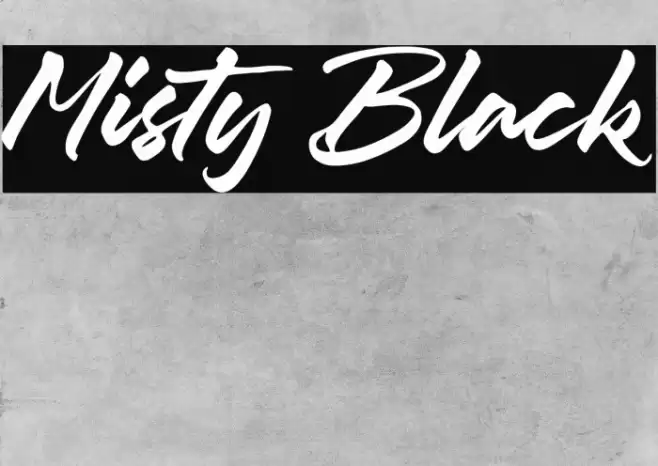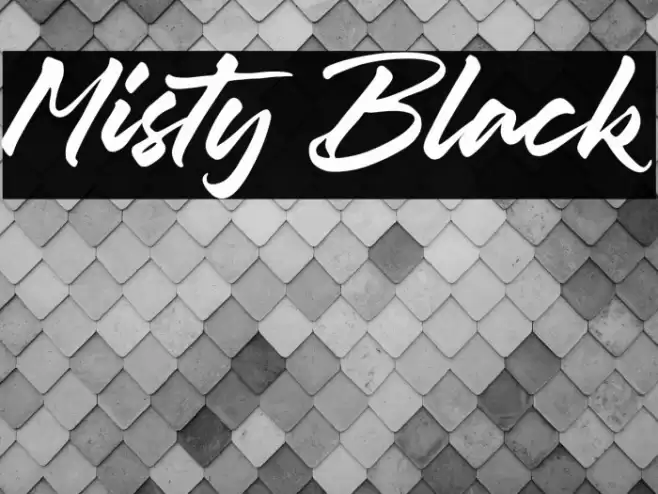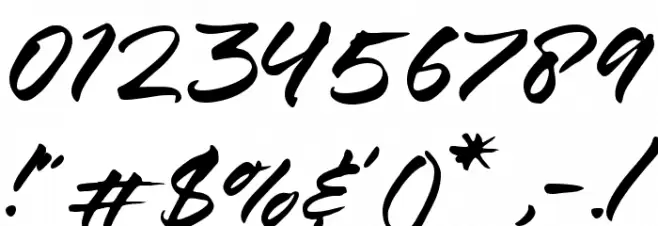
Misty Black Font
Misty Black Description
This font exudes a bold and expressive style, characterized by its fluid, cursive script that mimics the natural flow of handwriting. The uppercase letters are elegantly elongated, while the lowercase letters maintain a consistent rhythm, creating a harmonious balance. The numbers and special characters are crafted with the same dynamic flair, ensuring a cohesive look across all elements. The strokes are thick and confident, with a slight slant that adds a sense of motion and energy. This font is perfect for making a statement, whether in headlines, logos, or creative projects that require a personal touch.
A bold, cursive script font with dynamic, flowing strokes from Uncategorized fonts.